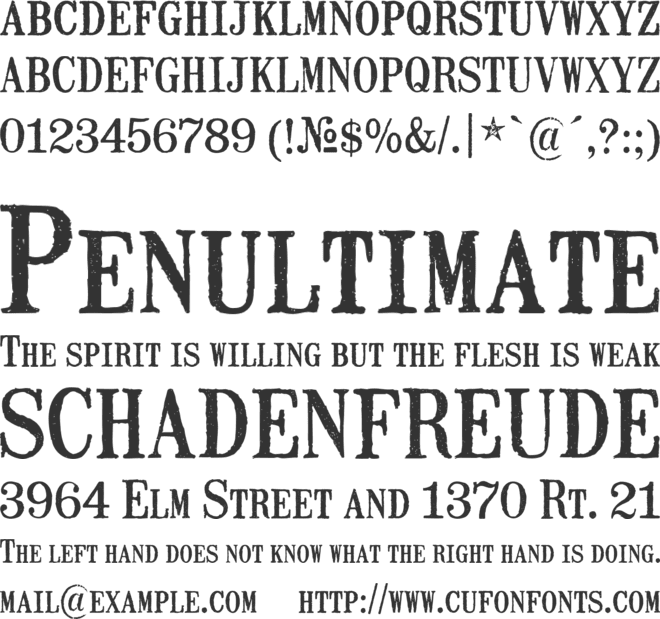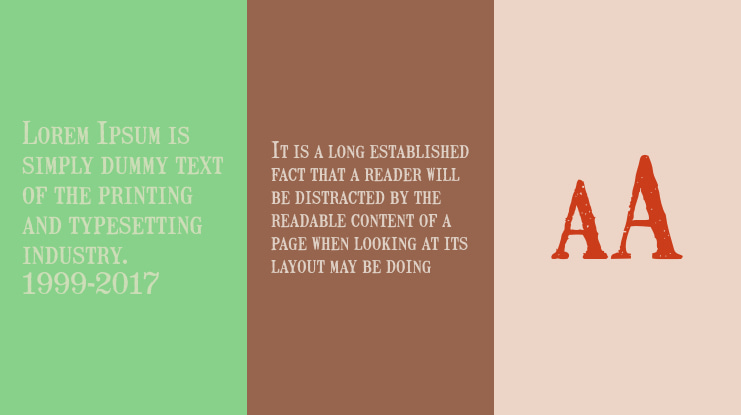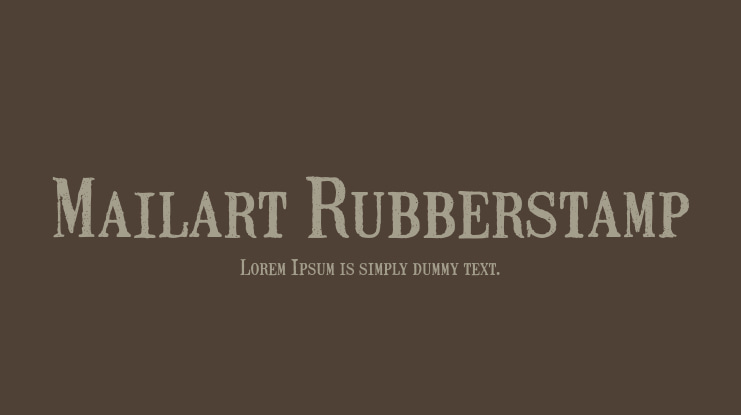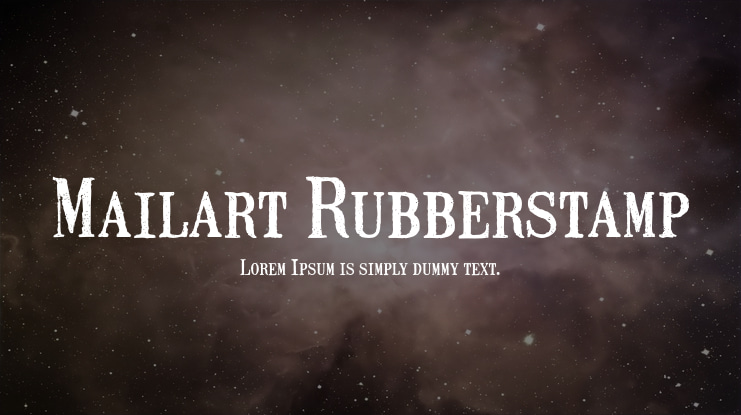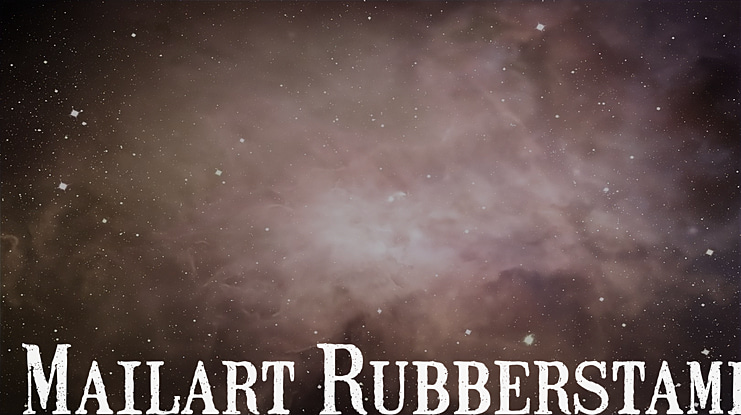
Mailart Rubberstamp Font
Mailart Rubberstamp was updated in April 2013 with subtle outline improvements, a bigger repertoire of European accented characters, and more consistent, slightly tighter spacing; increase the tracking to recreate the more relaxed, rustic appearance of the earlier version. A Bold weight and Obliques are also available from K-Type. The fonts are derived from the individually rubber-stamped letters on printed and collaged envelopes received from mailartists, and the typeface Clarendon Condensed.This font is free for personal use.You can buy a licence to use the font commercially at –www.k-type.com/ (http://www.k-type.com/)